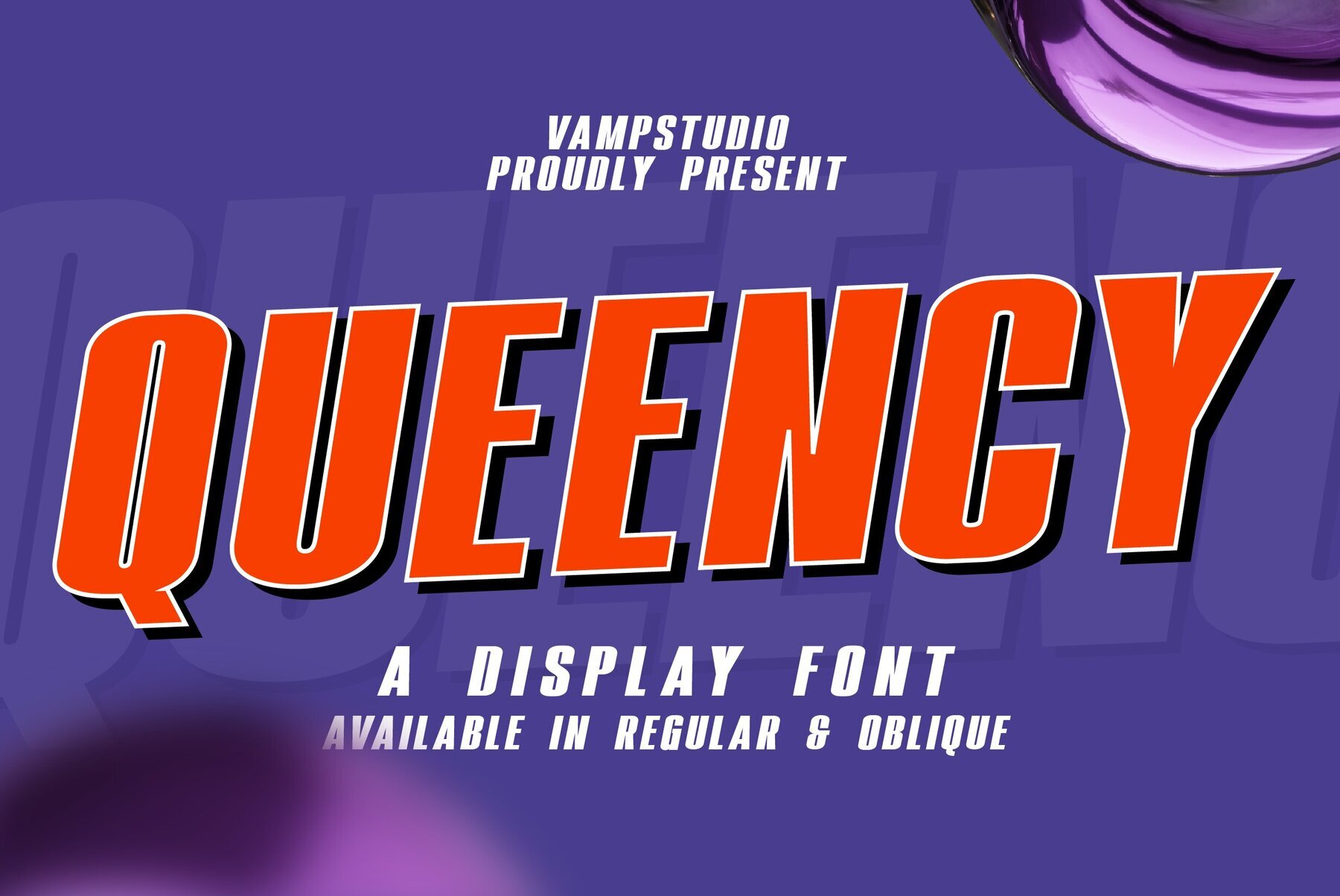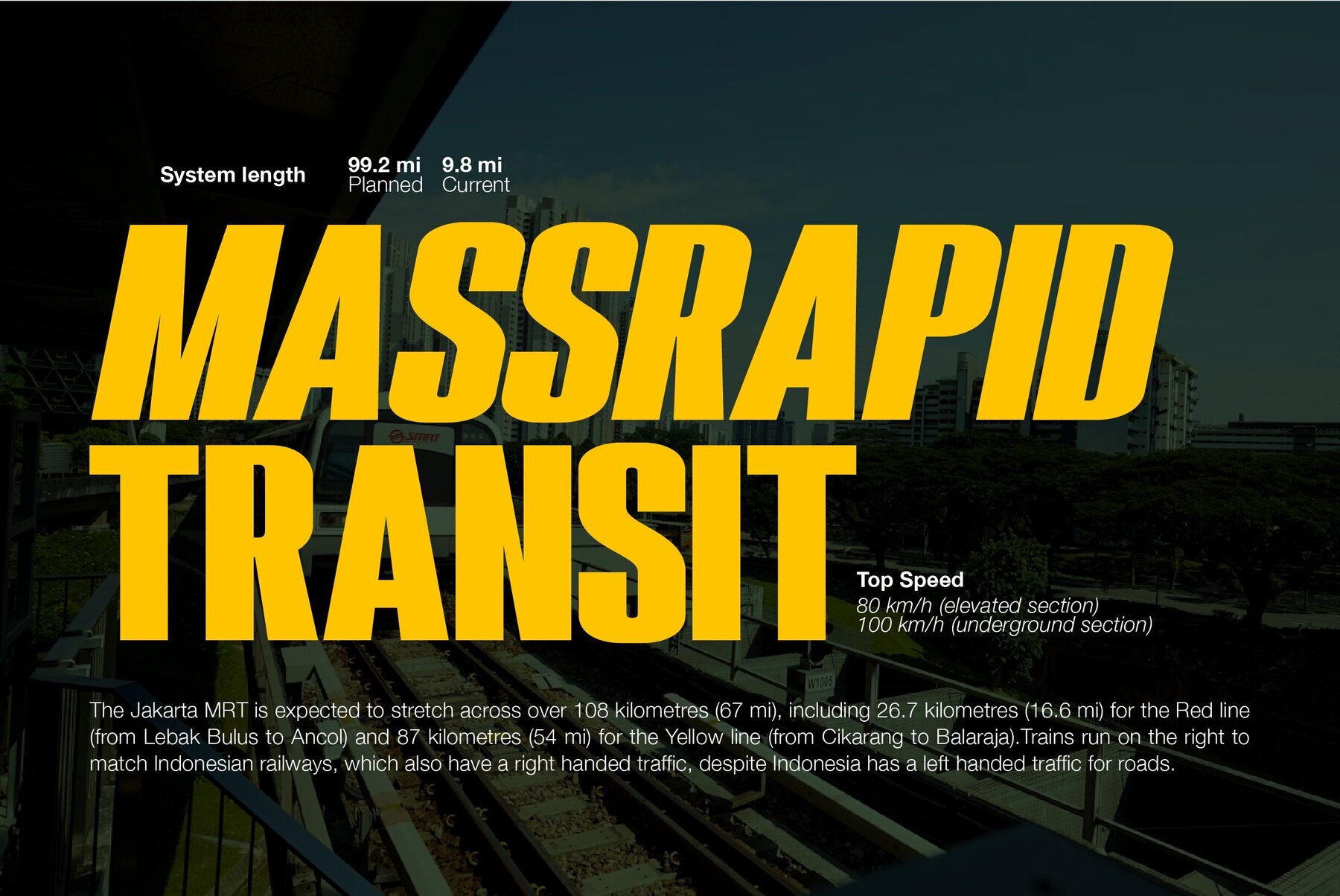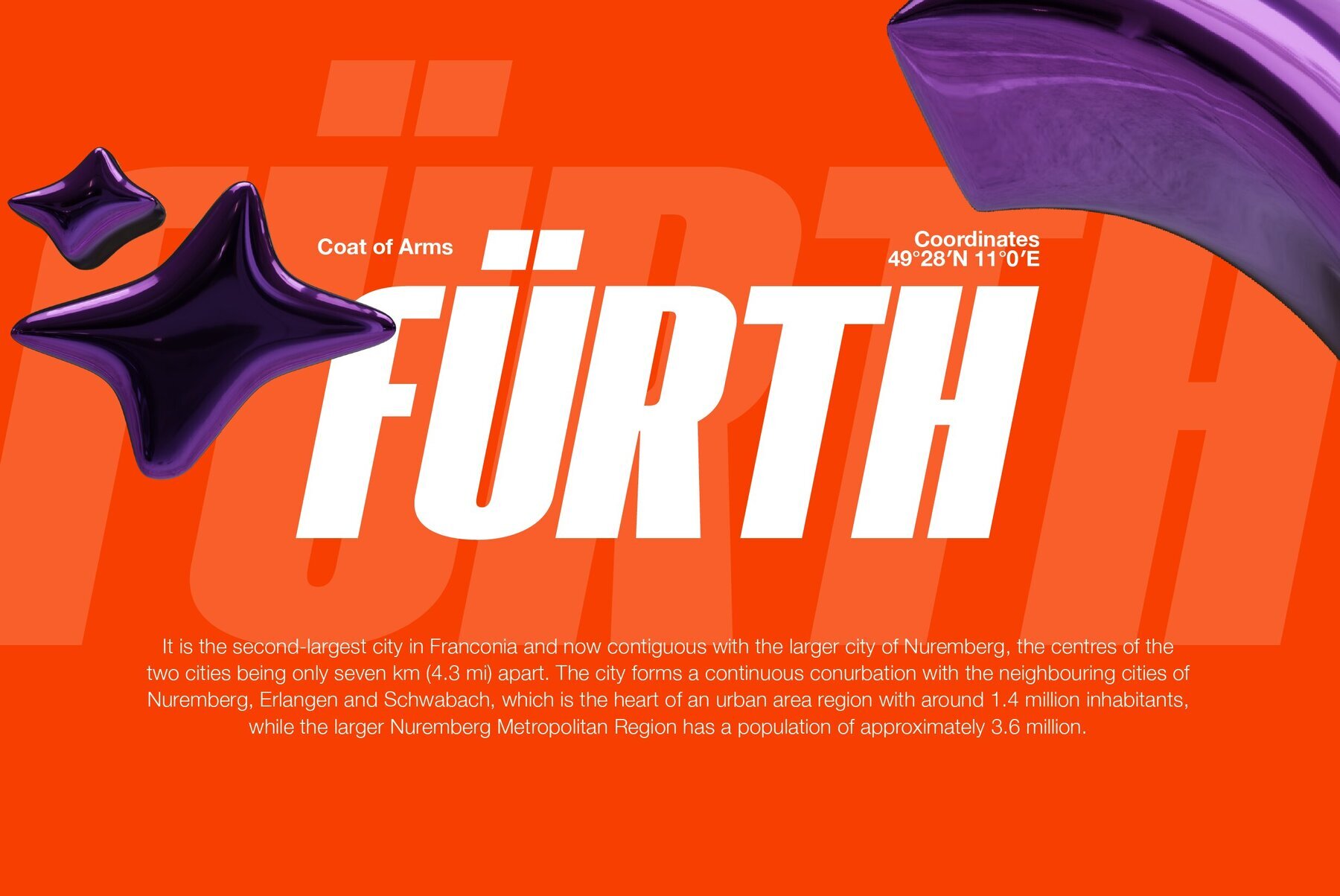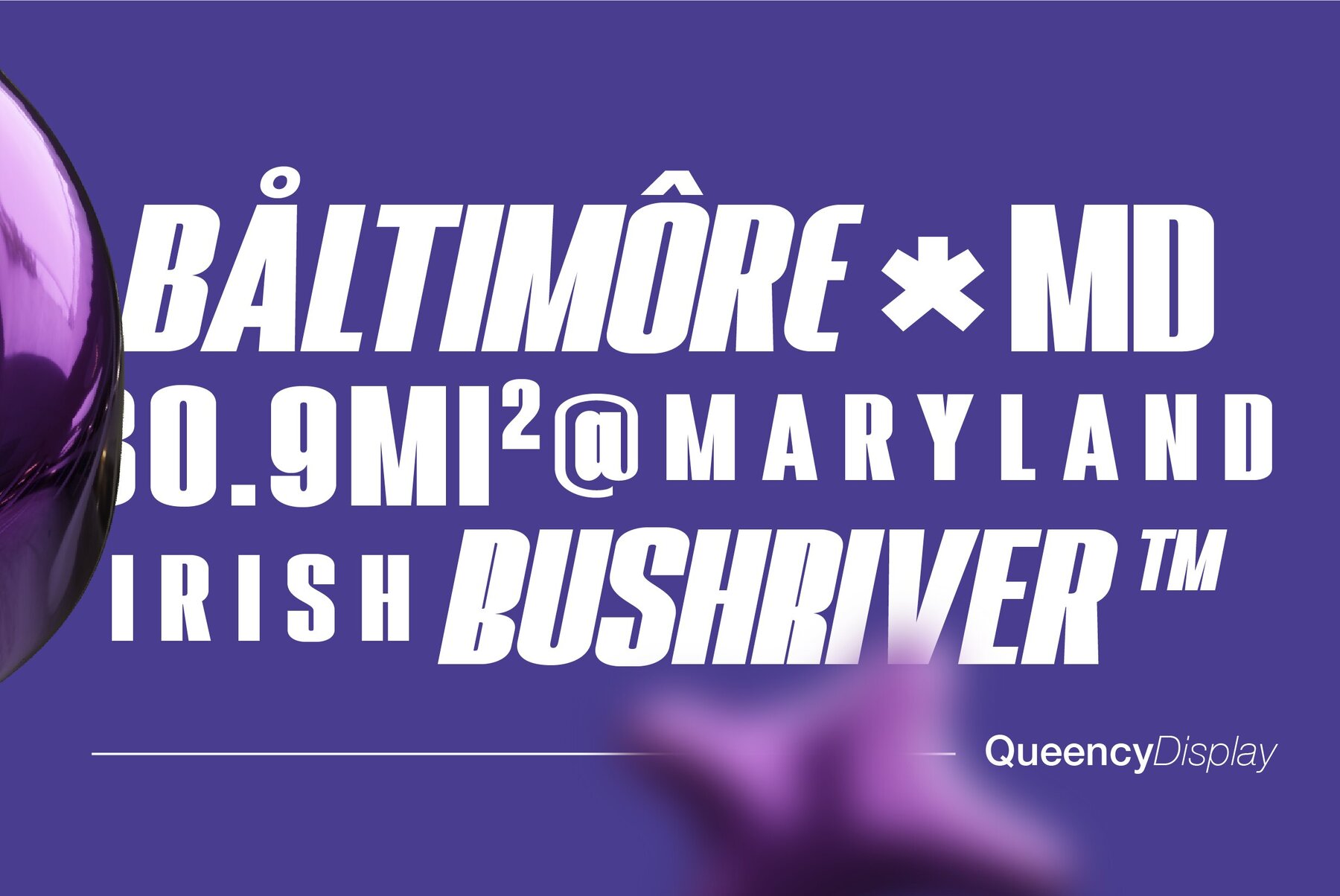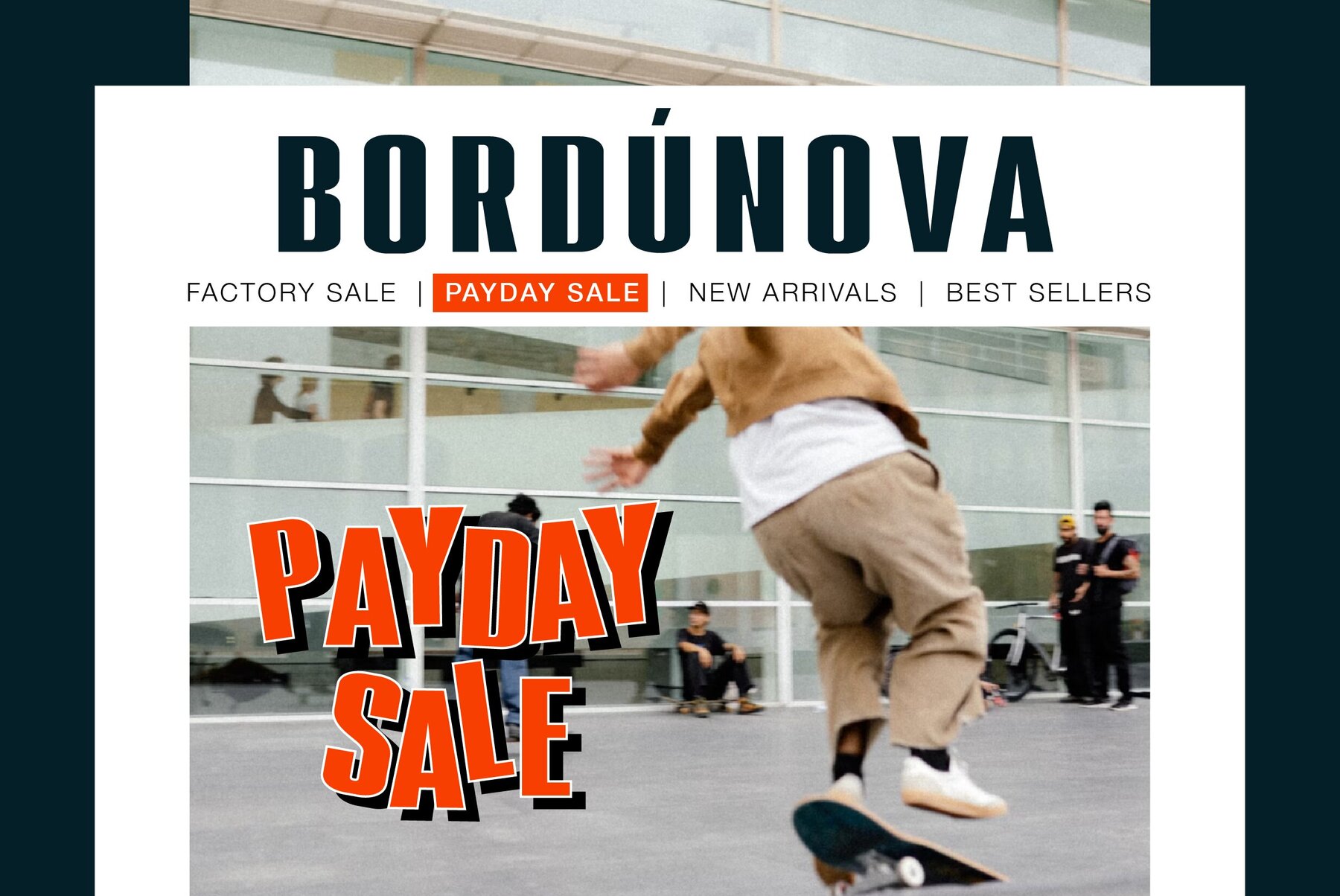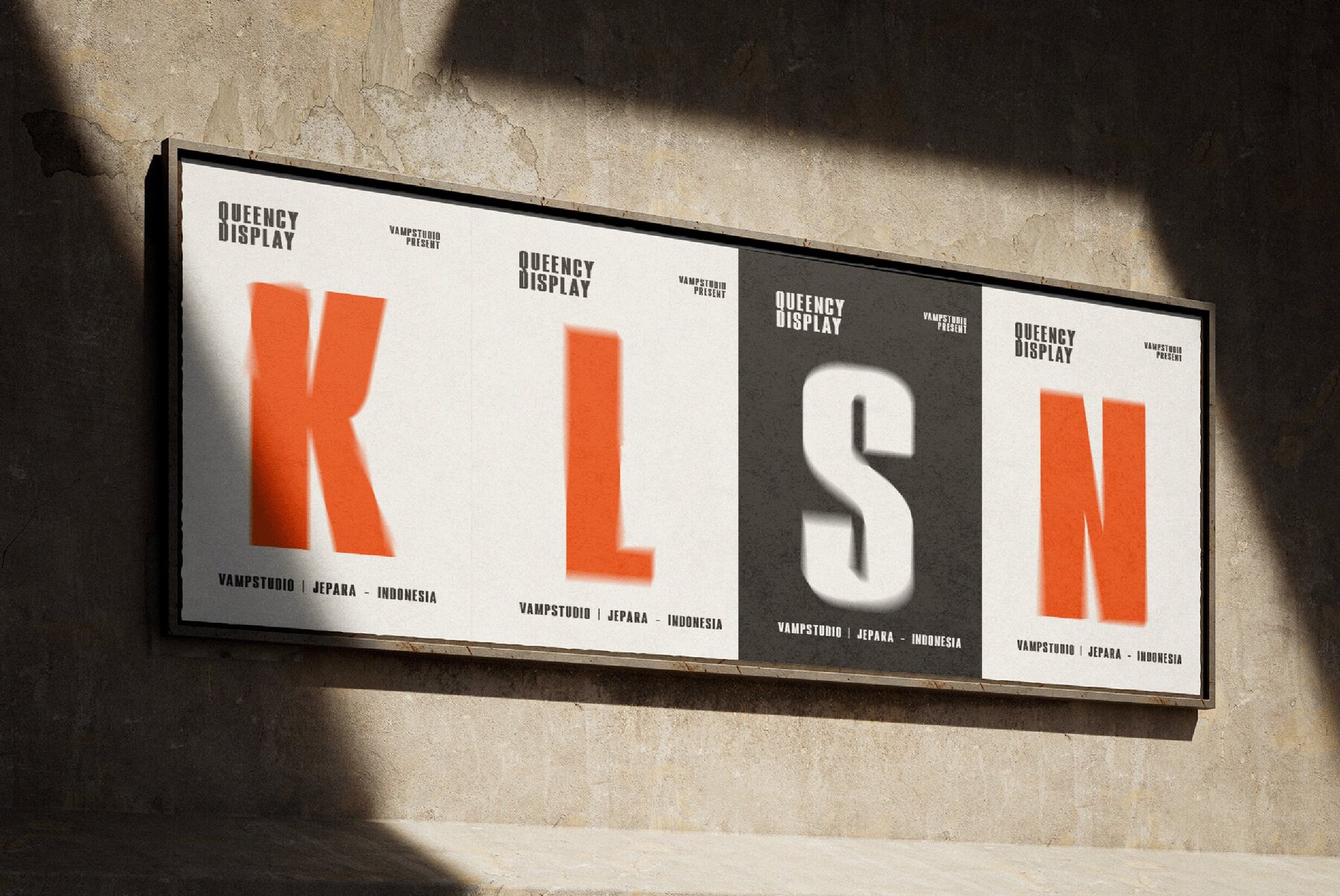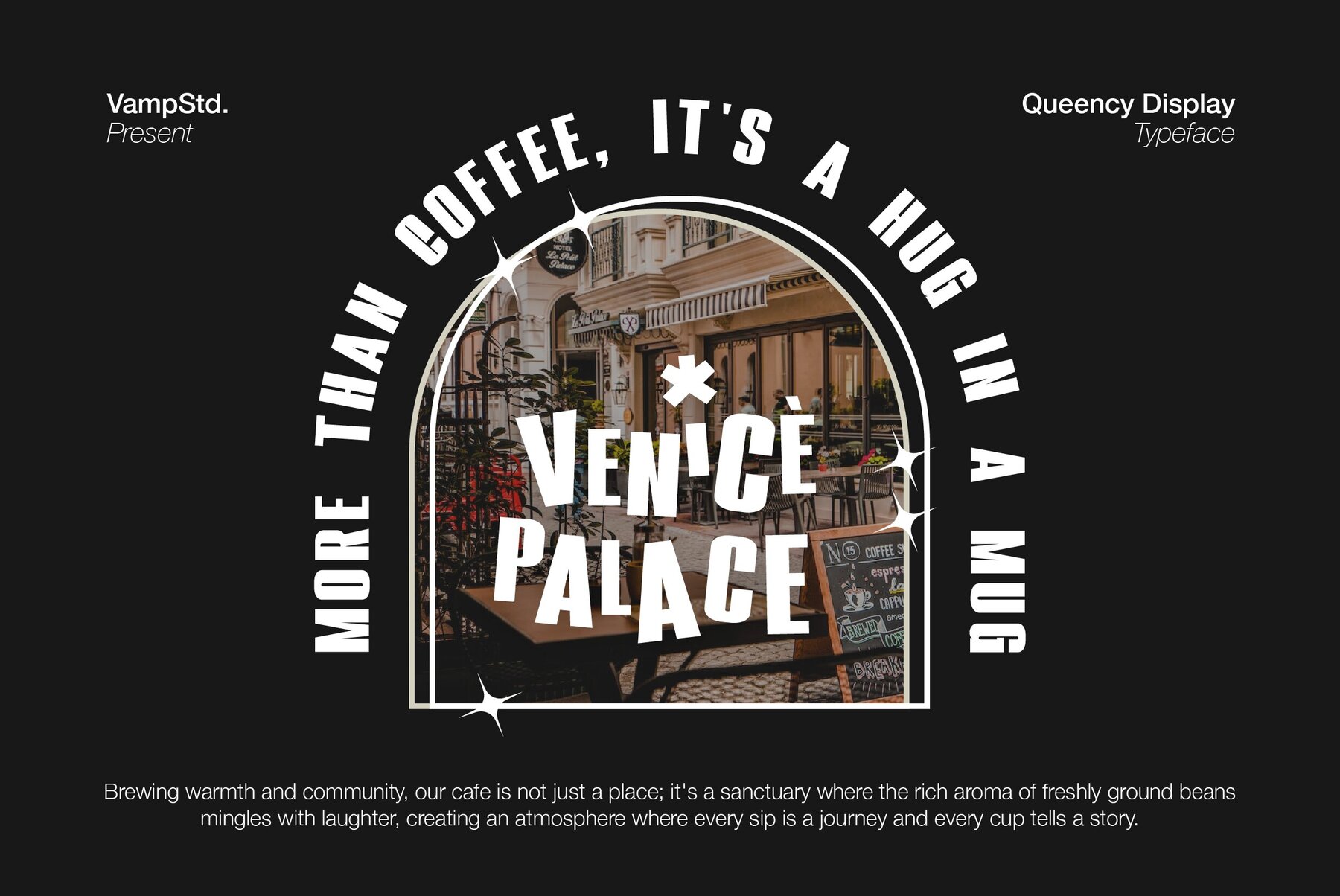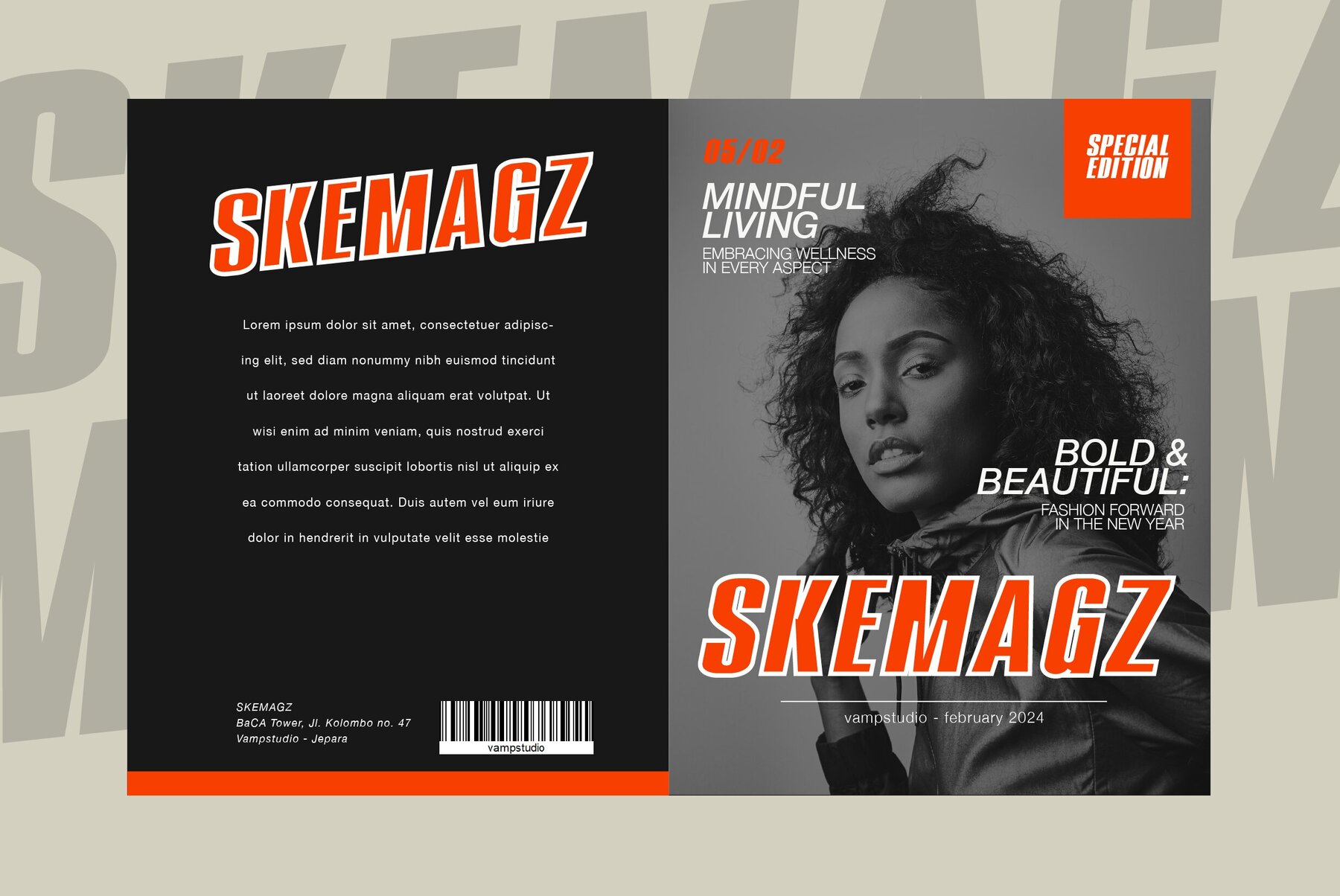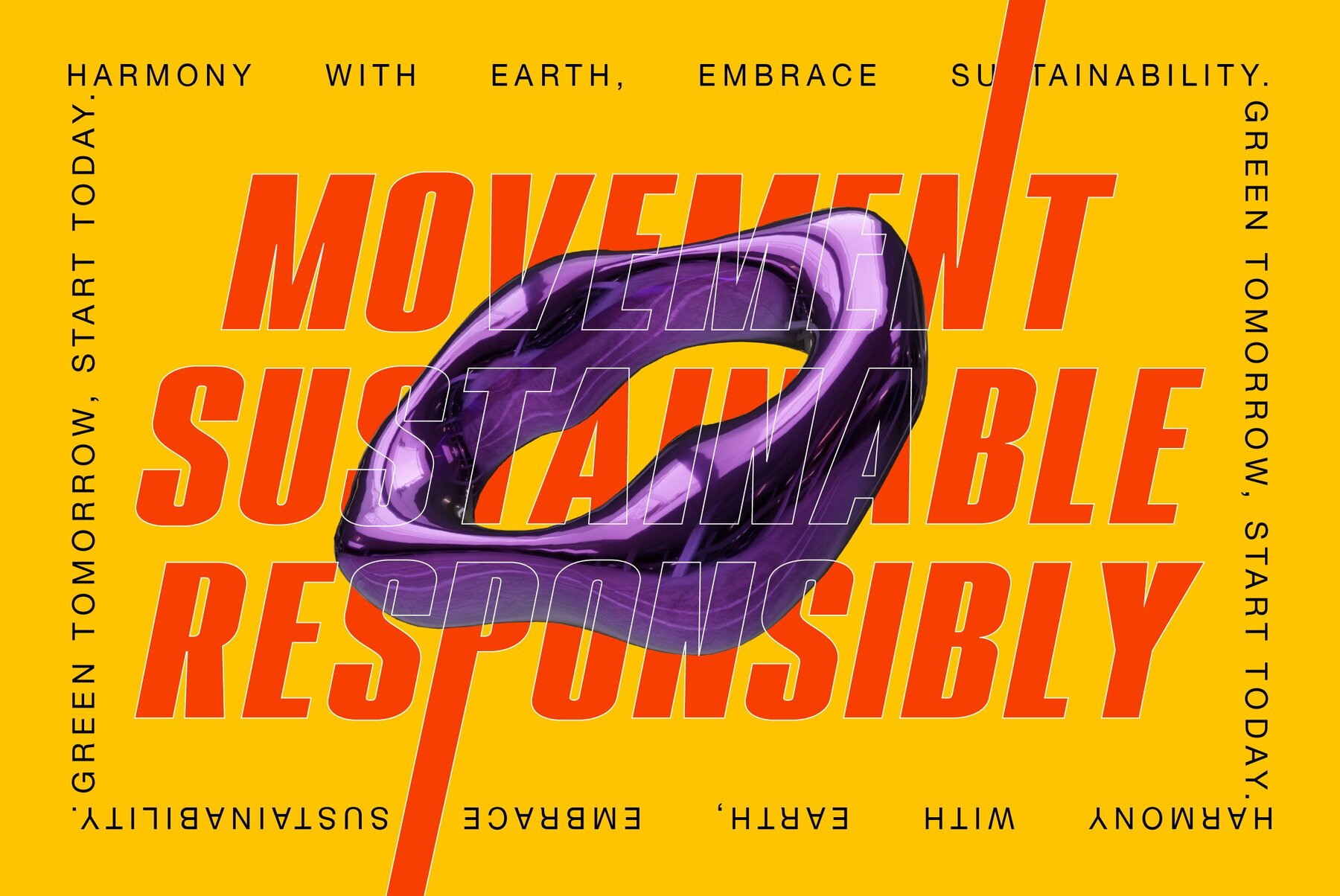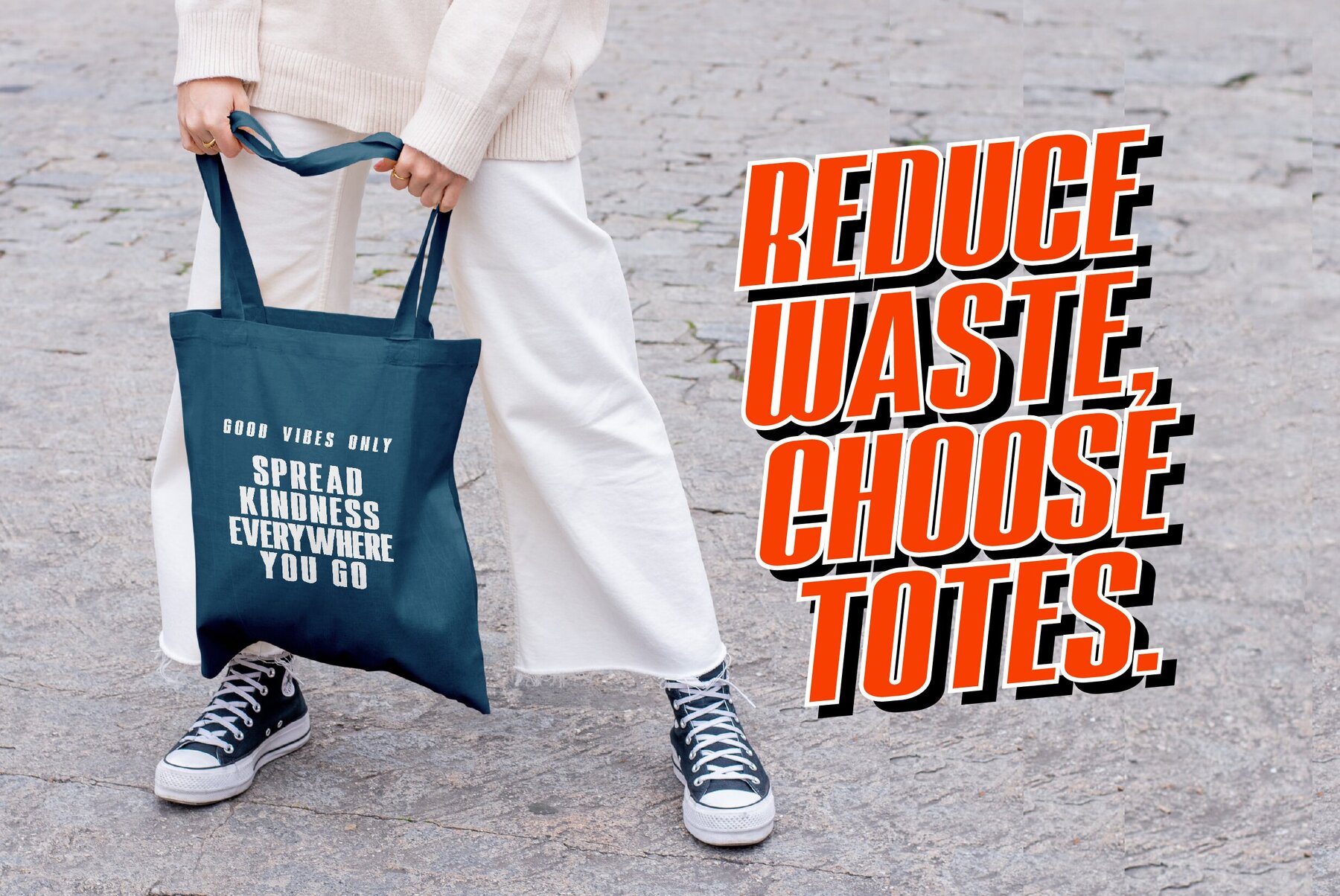
Queency Font
This typeface is a bold, sans-serif display font that boasts a geometric construction with a modern and minimalist appeal. It features high-contrast, clean letterforms, suitable for making a strong, contemporary statement in graphic design applications where attention-grabbing headlines or standout text is needed. The typeface carries a sense of sturdiness and functionality, making it ideal for urban and dynamic visual environments.